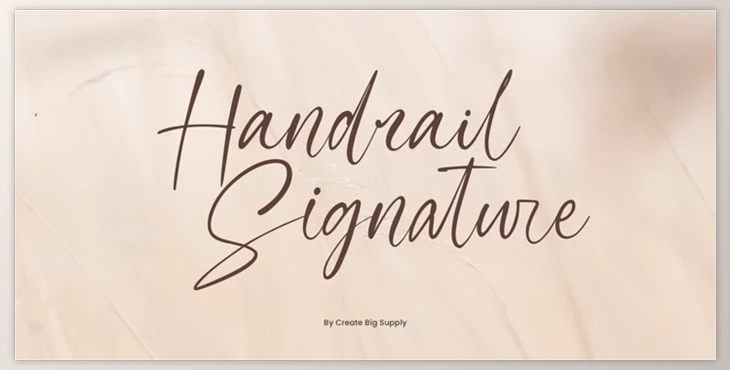
Handrail Signature Font - MyFonts: A handrail Signature is a signature font that has multiple ligatures. This creates a natural look and resembles real handwriting. Take a look at its gorgeous style and apply it to create stunning wedding invitations, stunning stationery art, stunning social media posts, and much more! It is PUA encoded, which means that you can easily access all of the incredible symbols and ligatures.
Some great features of Handrail Signature Font:
- Lowercase and uppercase
- Punctuation and numbers
- Multilingual
- Ligatures
What is Handrail Signature Font - MyFonts?
Handwriting or signature fonts are designed to mimic the look of handwritten text or a personal signature. They are often used in design projects to add a personalized or unique touch to text elements.
Handrail Signature Font - MyFonts is a versatile and elegant font designed to replicate the look of natural handwriting with multiple ligatures, which are special character combinations that enhance the authenticity and fluidity of the text.